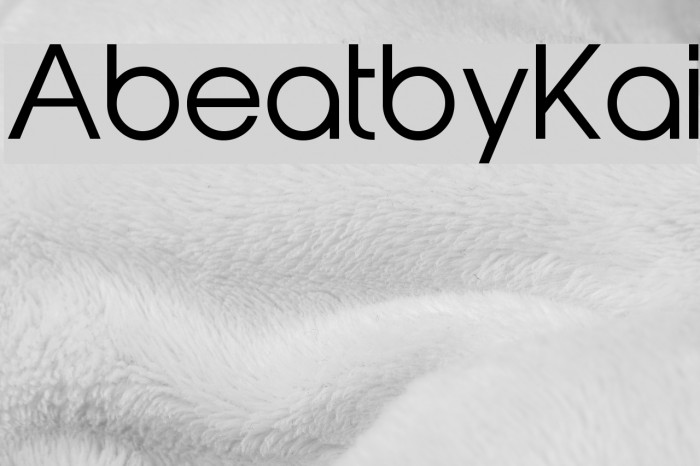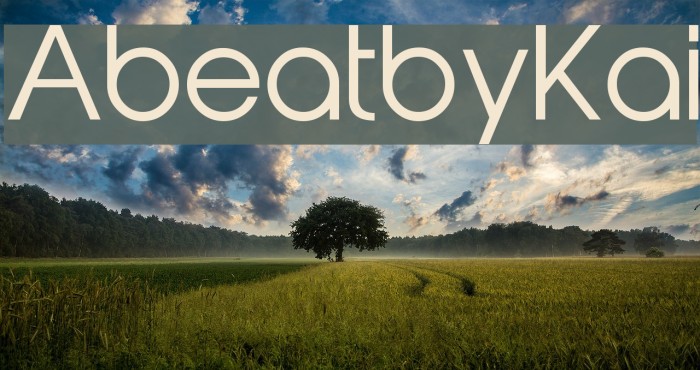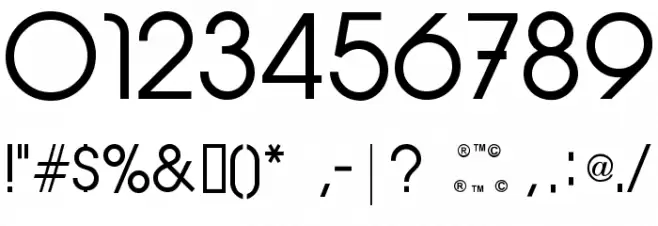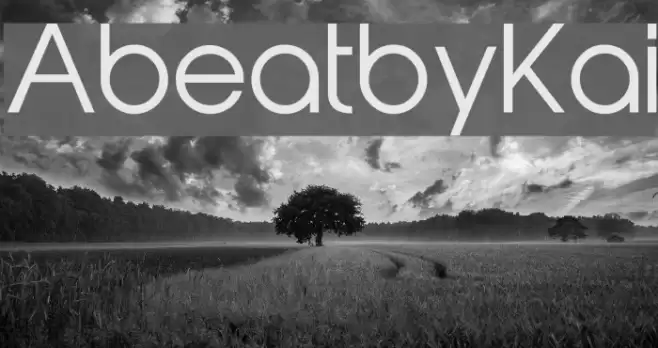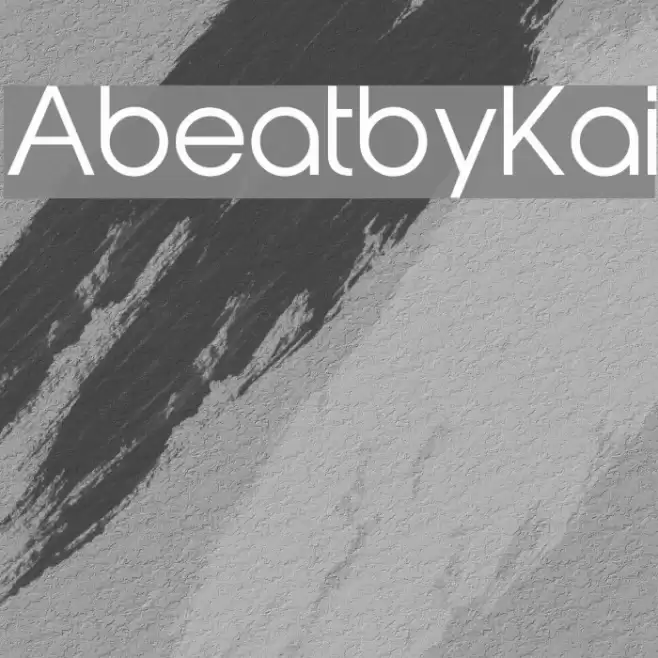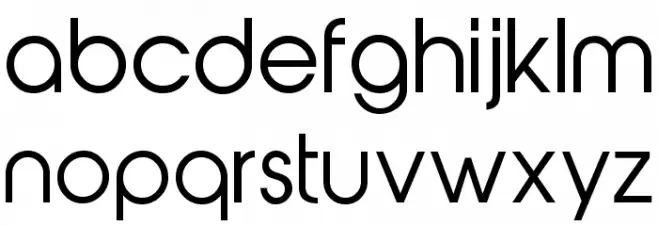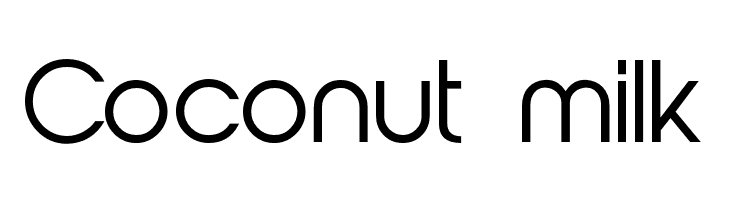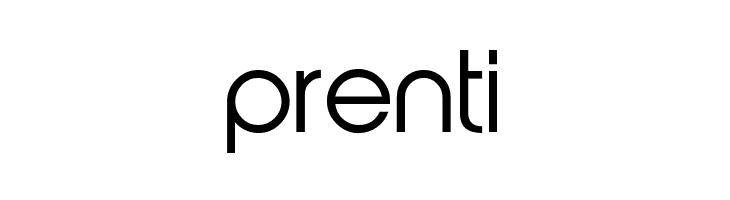
AbeatbyKai Font
This font presents a clean and modern aesthetic with a geometric sans-serif style. The characters are uniform and rounded, creating a harmonious and balanced appearance. The uppercase letters are bold and assertive, while the lowercase letters maintain a consistent flow with smooth curves. The numerals are clear and easily distinguishable, complementing the overall design. Special characters are well-integrated, maintaining the font's sleek and contemporary look. This font is versatile, suitable for various design applications where clarity and modernity are desired.
A modern, geometric sans-serif font with a clean and balanced design.
- Proposed Projects: Ideal for branding, advertising, web design, and editorial projects where a modern and clean look is essential.